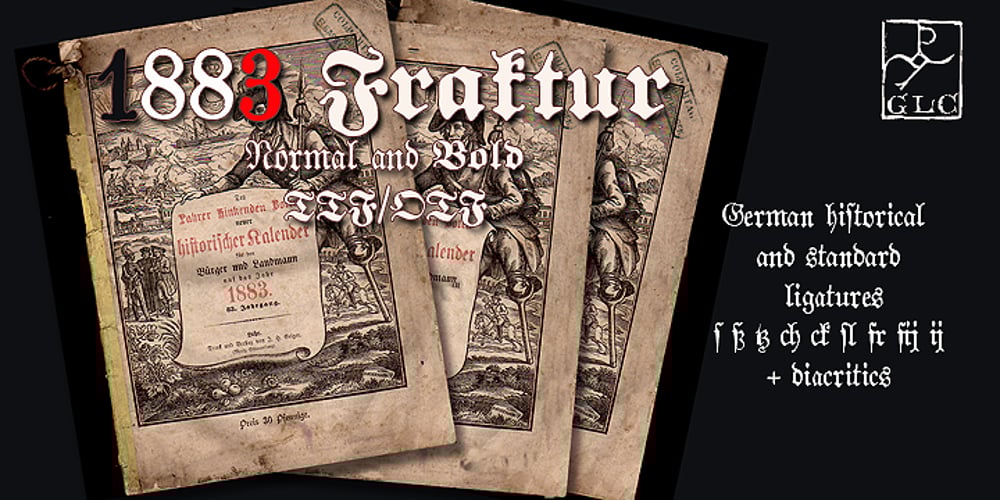
1883 Fraktur
1883 Fraktur Font Family was designed by published by GLC. 1883 Fraktur contains 2 styles and family package options. This family was inspired by the set of fonts used in the end of 1800s by the famous J. H. Geiger, printer in Lahr (Germany), especially these used to print an almanac for the year 1883. It is a Fraktur pattern, with two styles, as a few others incomplete fonts also used for this work were Blackletters from other patterns. Both were used in two size, for titles, subtitles, main text and notes. This font contains standard ligatures and German historical ligatures (German double s, long s, tz, ch, ck…) and diacritics. 1543 German Deluxe Initials may be used in complement this family.